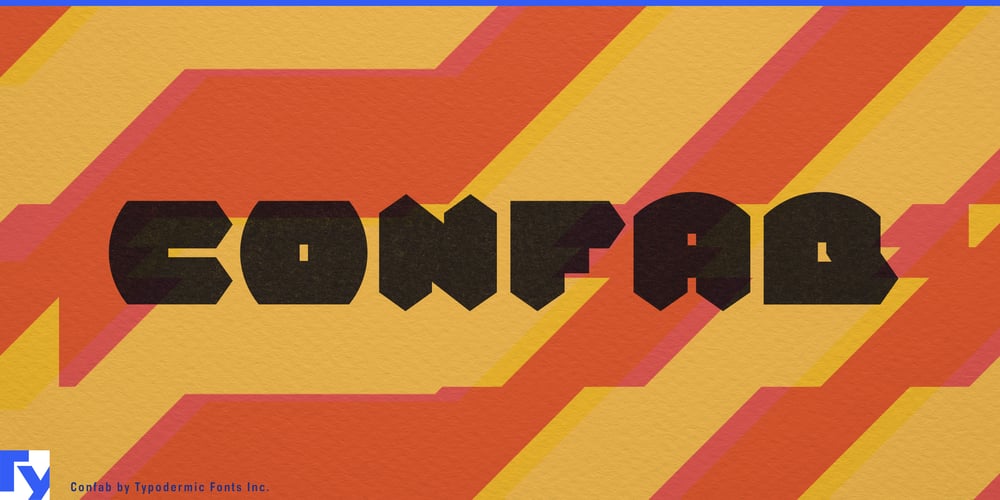
Confab Font Family was designed by Ray Larabie and published by Typodermic. Confab contains 1 styles and family package options. Step into the future of communication with Confab, a typeface that seamlessly blends pure geometric forms with cutting-edge design. This visionary font family doesn’t just occupy space—it commands attention, transforming ordinary text into extraordinary visual experiences.Confab’s technical letterforms and stark appearance make it the perfect choice for forward-thinking designers who dare to push boundaries. Whether you’re crafting a sleek corporate identity, designing a futuristic user interface, or launching an avant-garde advertising campaign, Confab lends your message an unmistakable voice that resonates in our increasingly digital world.Imagine your words as beacons of innovation, cutting through the noise of conventional typography. Confab’s bold yet refined character sets are engineered to elevate your designs, ensuring they not only catch the eye but also captivate the imagination. From striking headlines to crisp body text, this typeface adapts seamlessly across various applications while maintaining its distinct personality.In our interconnected world, Confab speaks the language of the future—quite literally. Its extensive character set supports a vast array of Latin-based European writing systems, from Afrikaans to Zulu. Like a linguistic chameleon, Confab effortlessly adapts to over 100 languages, ensuring your message maintains its futuristic edge whether it’s displayed in Dutch, Swahili, or Polish. This typeface doesn’t just cross borders; it erases them, allowing your designs to resonate with diverse audiences across the globe.Confab isn’t just a font—it’s a design philosophy that embraces the intersection of technology and creativity. By choosing Confab, you’re not simply selecting a typeface; you’re making a statement about your commitment to innovation and your vision for the future of visual communication. Experience the power of Confab and watch as your typography becomes a catalyst for engagement, leaving a lasting impression on everyone who encounters it.